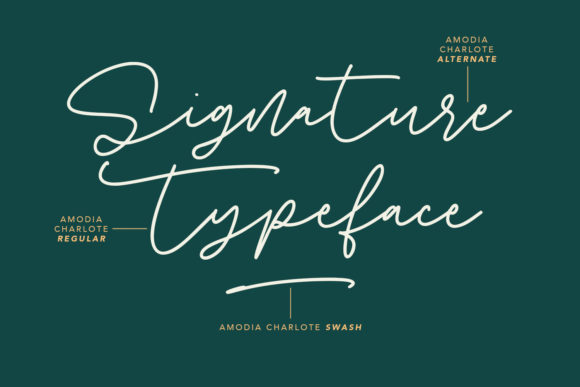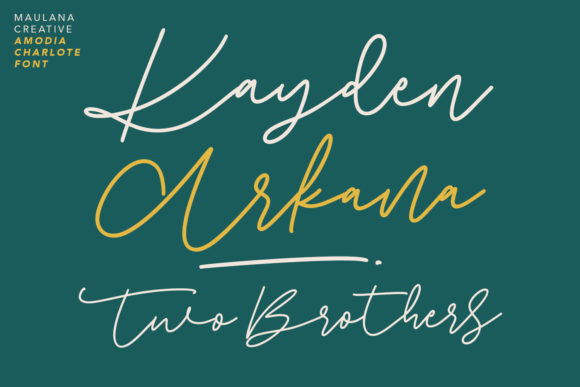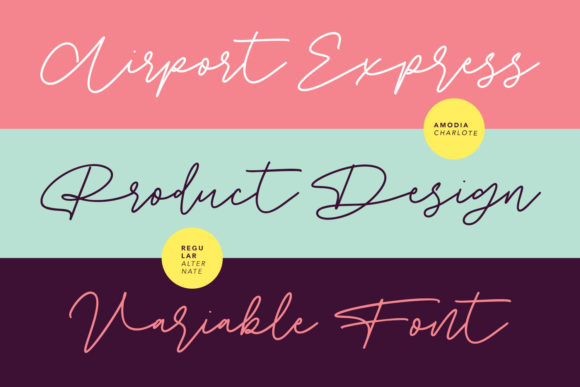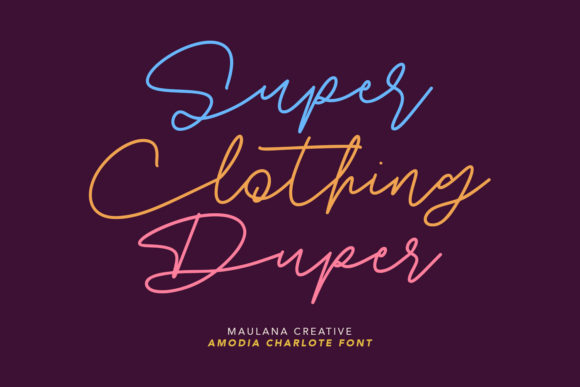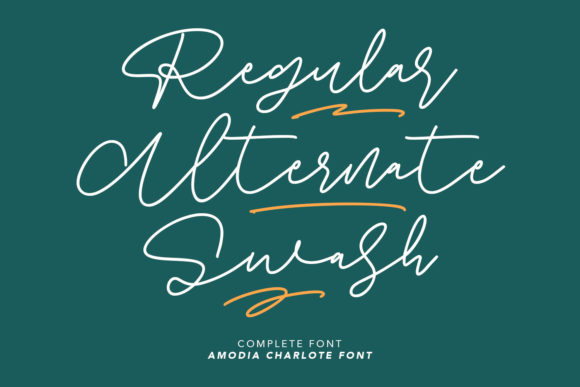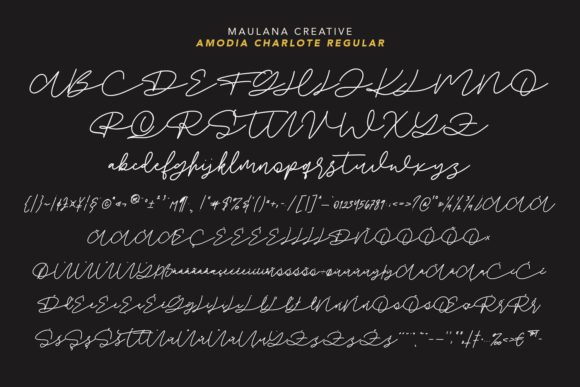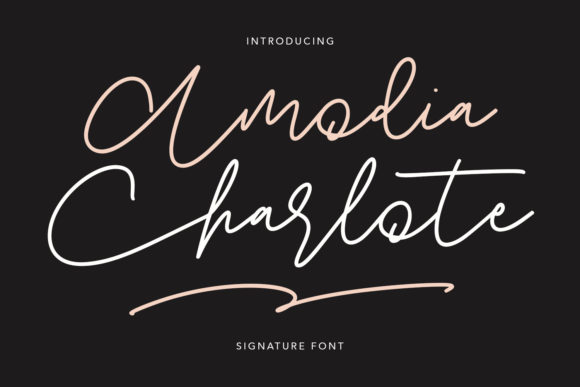
Amodia Charlote Font: Elevate Your Designs with Elegance and Sophistication
In the world of typography, fonts play a crucial role in conveying the tone and personality of a design. For designers and crafters seeking to add a touch of elegance and sophistication to their projects, Amodia Charlote Font is an excellent choice. This stylish and delicate handwritten font is designed to bring a clean, thin, and smooth vibe to any design, making it a hit for a wide range of applications.
What Makes Amodia Charlote Font Stand Out?
Amodia Charlote Font boasts a unique blend of style and versatility, making it an ideal choice for designers and crafters. Here are some key features that set it apart:
- Clean and Thin Design: Amodia Charlote Font features a clean and thin design that exudes elegance and sophistication. Its smooth lines and curves make it perfect for creating visually appealing designs.
- Handwritten Style: The font’s handwritten style adds a personal touch to any design, making it ideal for creating unique and eye-catching projects.
- Versatility: Amodia Charlote Font is suitable for a wide range of applications, including branding, product packaging, invitations, quotes, t-shirts, labels, posters, and logos.
Amodia Charlote Font is a perfect choice for designers and crafters who want to add a touch of elegance and sophistication to their projects. Whether you’re working on a branding project, creating product packaging, or designing a poster, this font is sure to impress.
For designers, Amodia Charlote Font offers a range of possibilities, including:
- Branding: Use Amodia Charlote Font to create stunning brand identities that reflect your brand’s personality and values.
- Product Packaging: Add a touch of elegance to your product packaging with Amodia Charlote Font, making your products stand out on store shelves.
- Invitations and Quotes: Create beautiful invitations and quotes that showcase your creativity and style.
For crafters, Amodia Charlote Font offers a range of creative possibilities, including:
- T-Shirts and Apparel: Use Amodia Charlote Font to create stunning t-shirts and apparel that make a statement.
- Labels and Stickers: Add a touch of elegance to your labels and stickers with Amodia Charlote Font, making them perfect for gifts, products, and more.
- Posters and Art: Create beautiful posters and art pieces that showcase your creativity and style.
Why Choose Amodia Charlote Font?
With so many fonts available, why choose Amodia Charlote Font? Here are a few reasons why this font stands out:
- Unique Style: Amodia Charlote Font offers a unique and distinctive style that sets it apart from other fonts.
- High-Quality Design: The font is designed with high-quality lines and curves, making it perfect for printing and digital use.
- Easy to Read: Amodia Charlote Font is easy to read, making it perfect for body text and headlines.
In conclusion, Amodia Charlote Font is a stylish and delicate handwritten font that offers a range of creative possibilities for designers and crafters. Its clean, thin, and smooth design makes it perfect for adding a touch of elegance and sophistication to any project. Whether you’re working on a branding project, creating product packaging, or designing a poster, Amodia Charlote Font is an excellent choice. So why wait? Download Amodia Charlote Font today and take your designs to the next level!